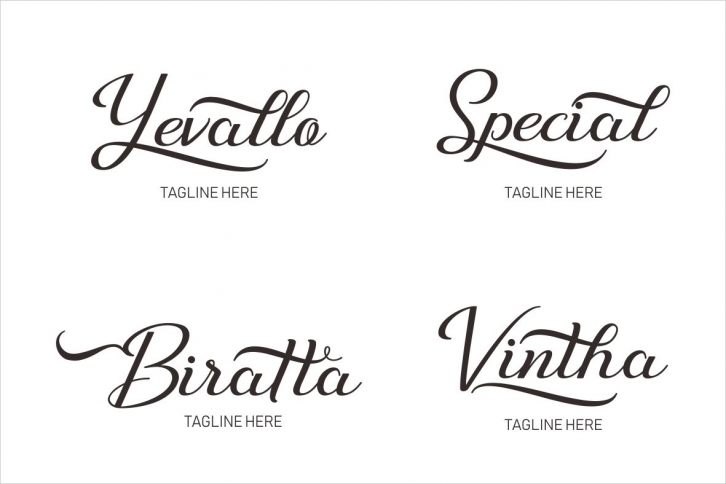
Just Sweet is fresh & modern script with a handmade calligraphy style. It features decorative characters and a dancing baseline!It works great for many different uses, such as invitations, greeting cards, branding materials, business cards, quotes & posters, lettering and much more. included: - Just Sweet ( OTF / TTF / WOFF / SVG ) - Ornament Just Sweet ( OTF / TTF / WOFF / SVG )